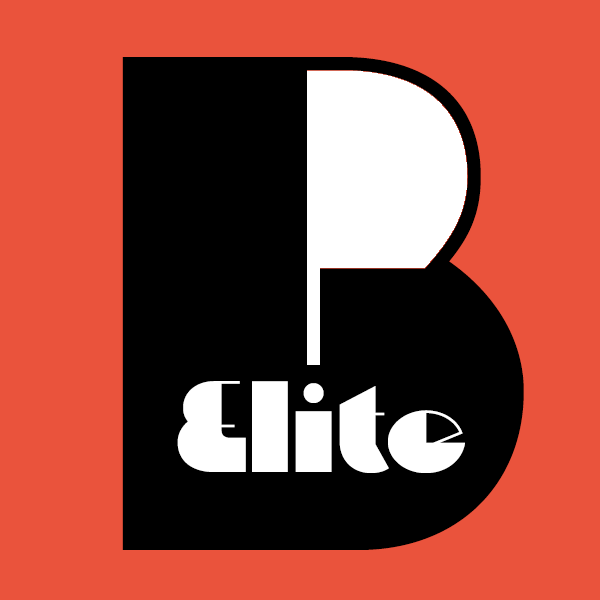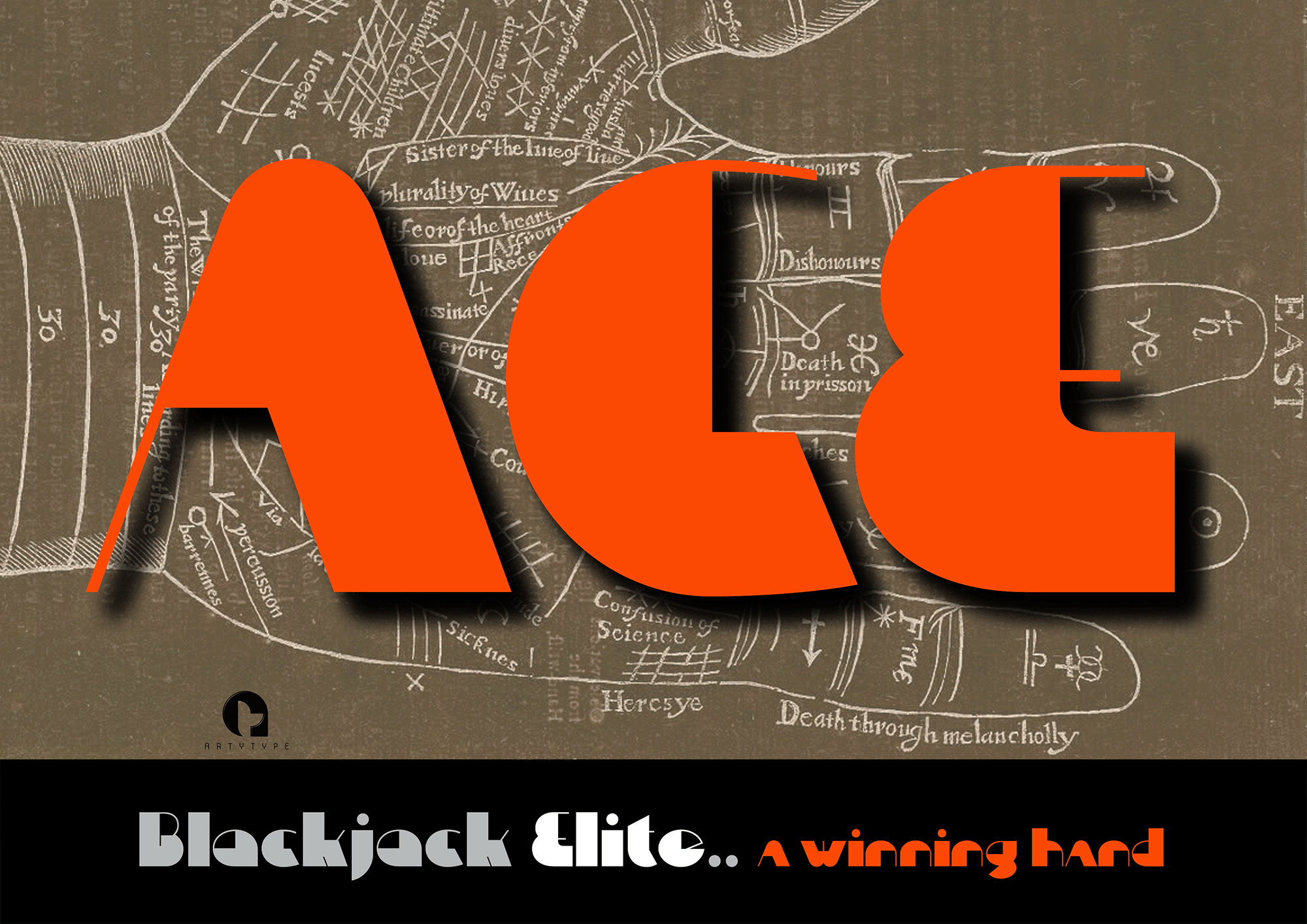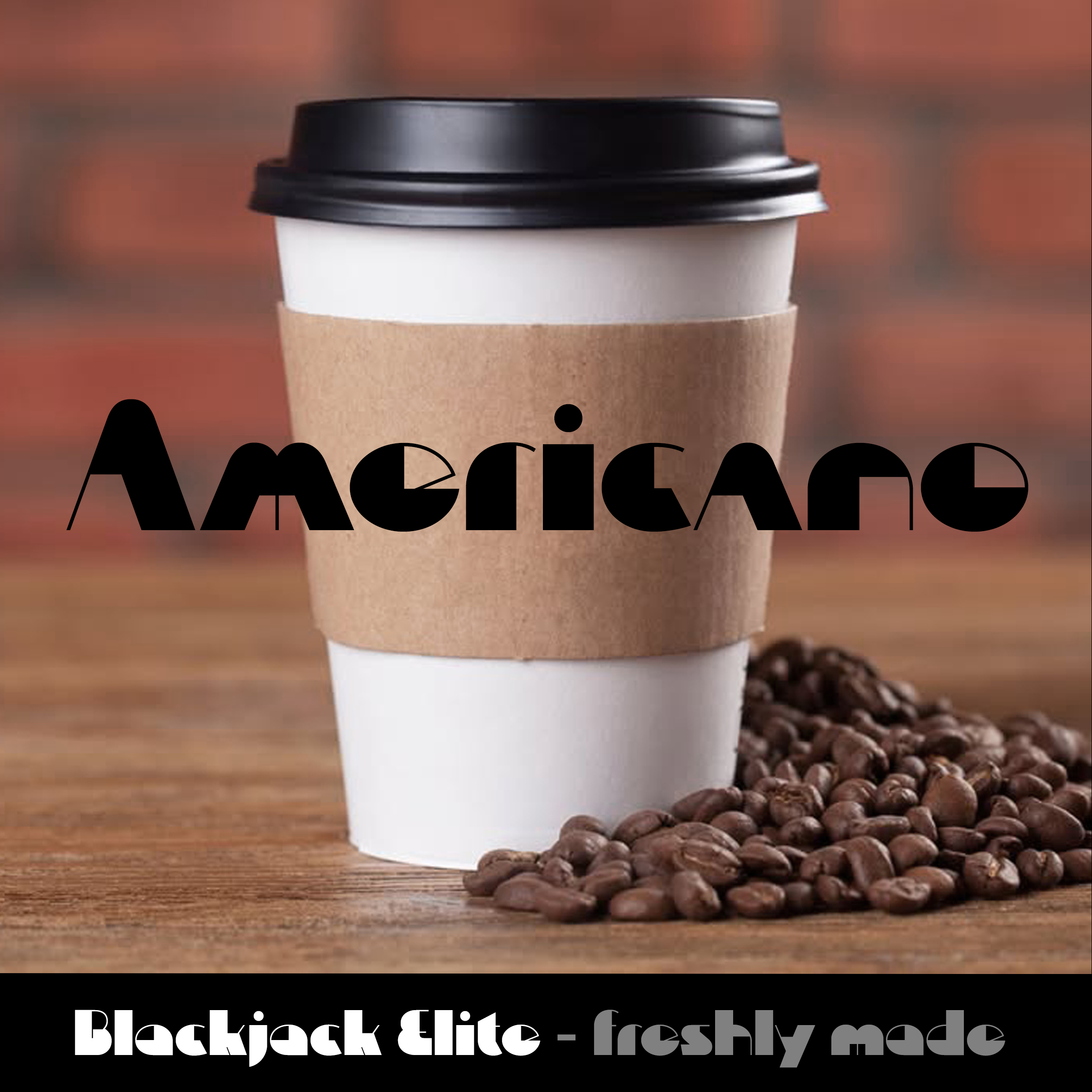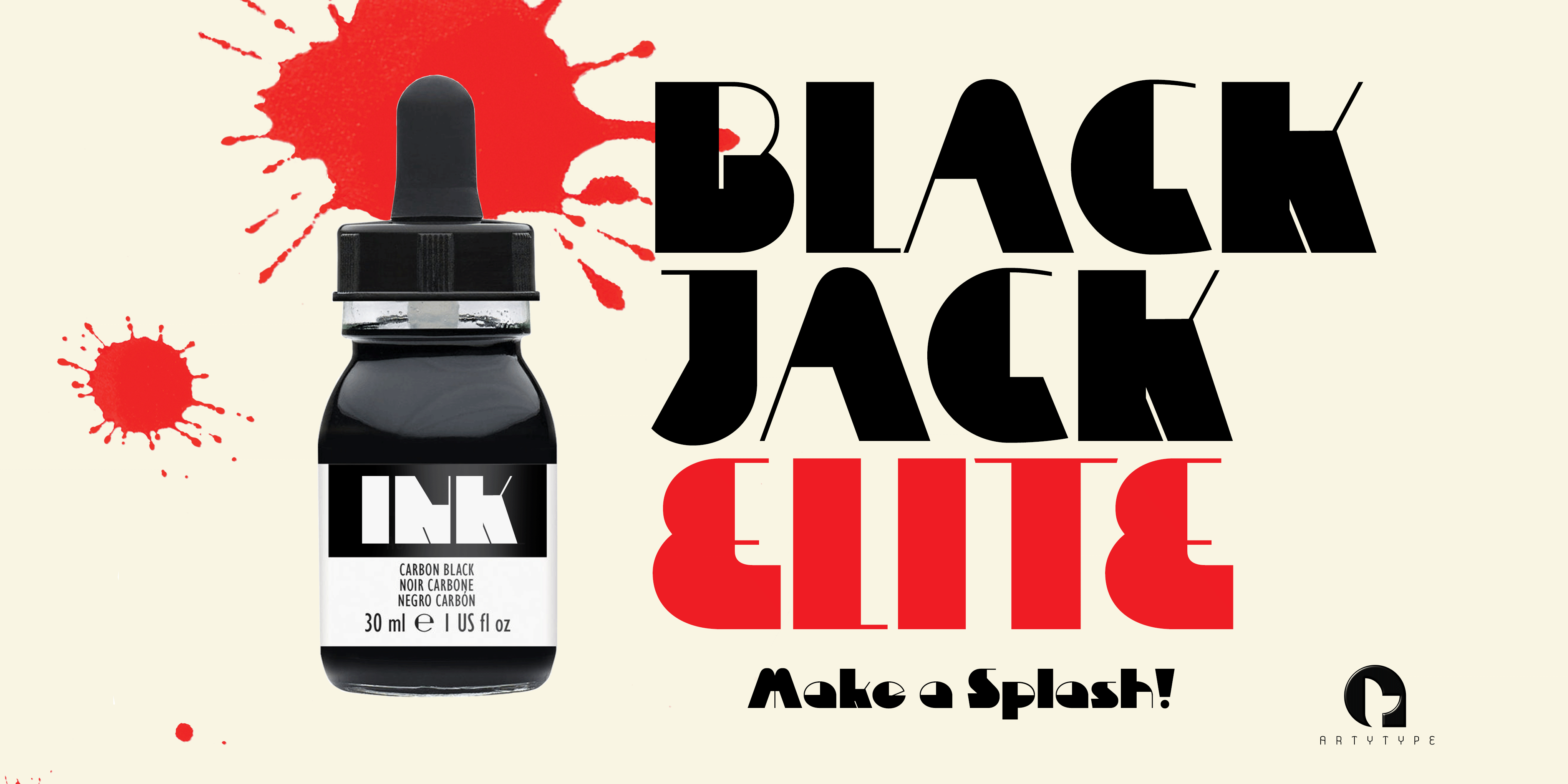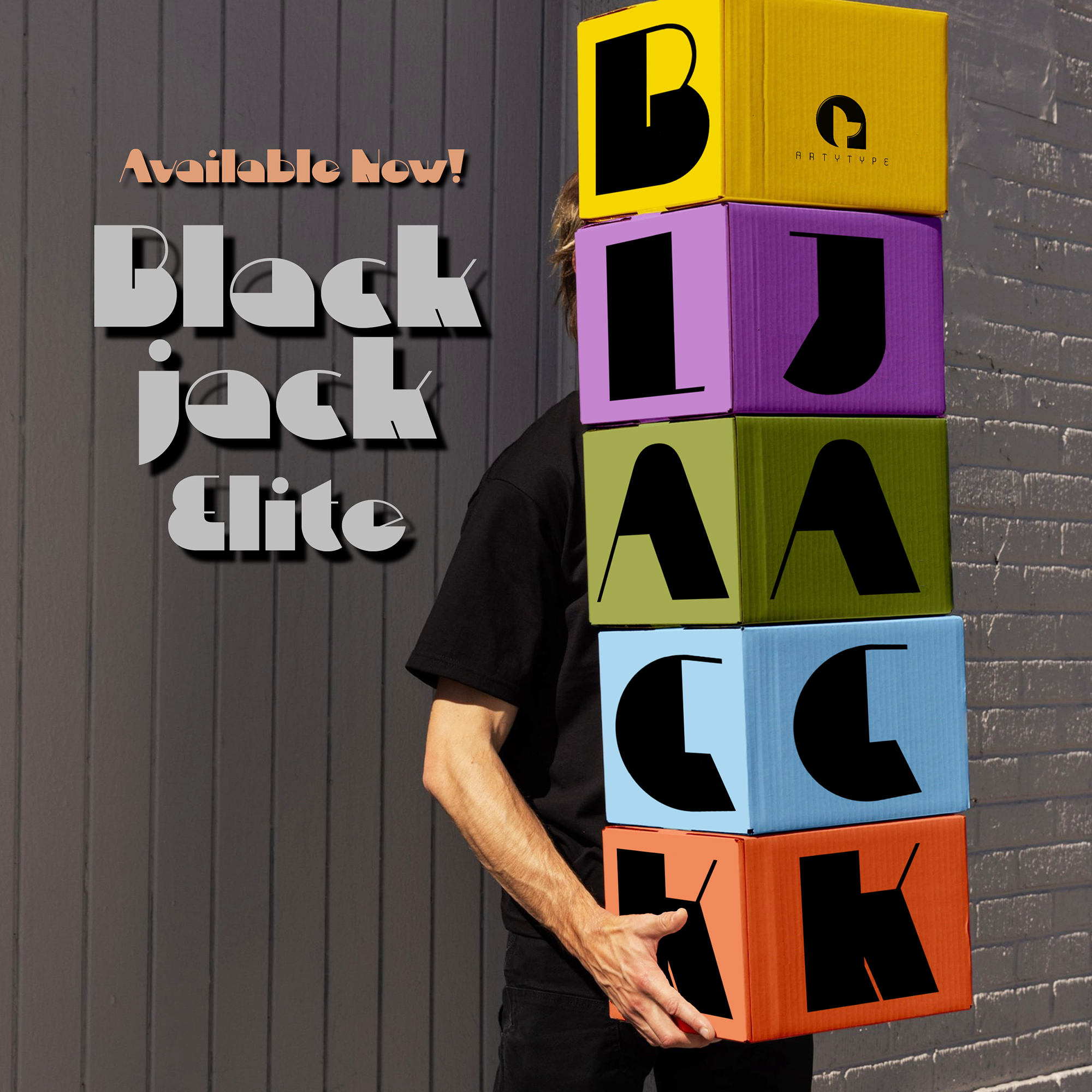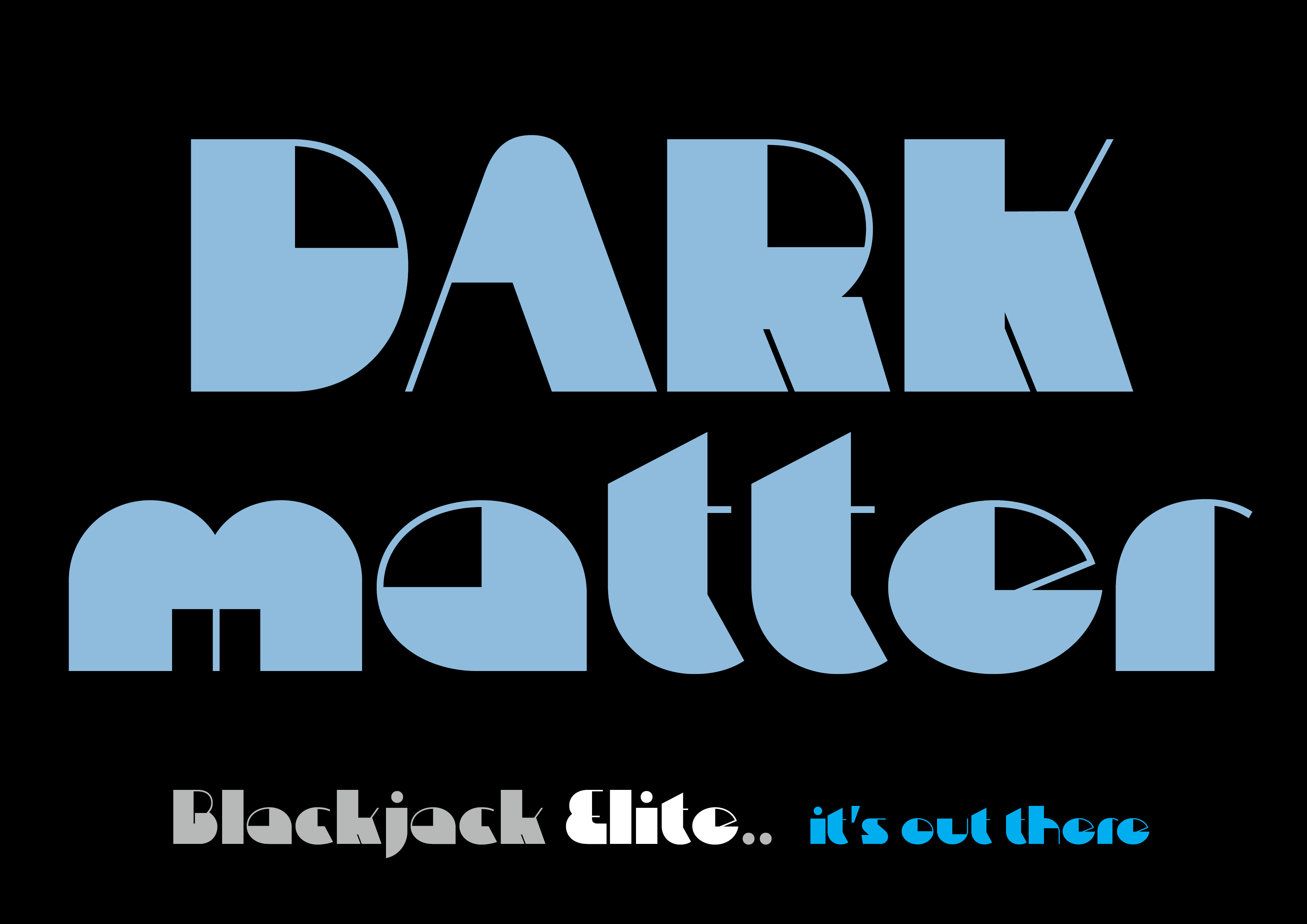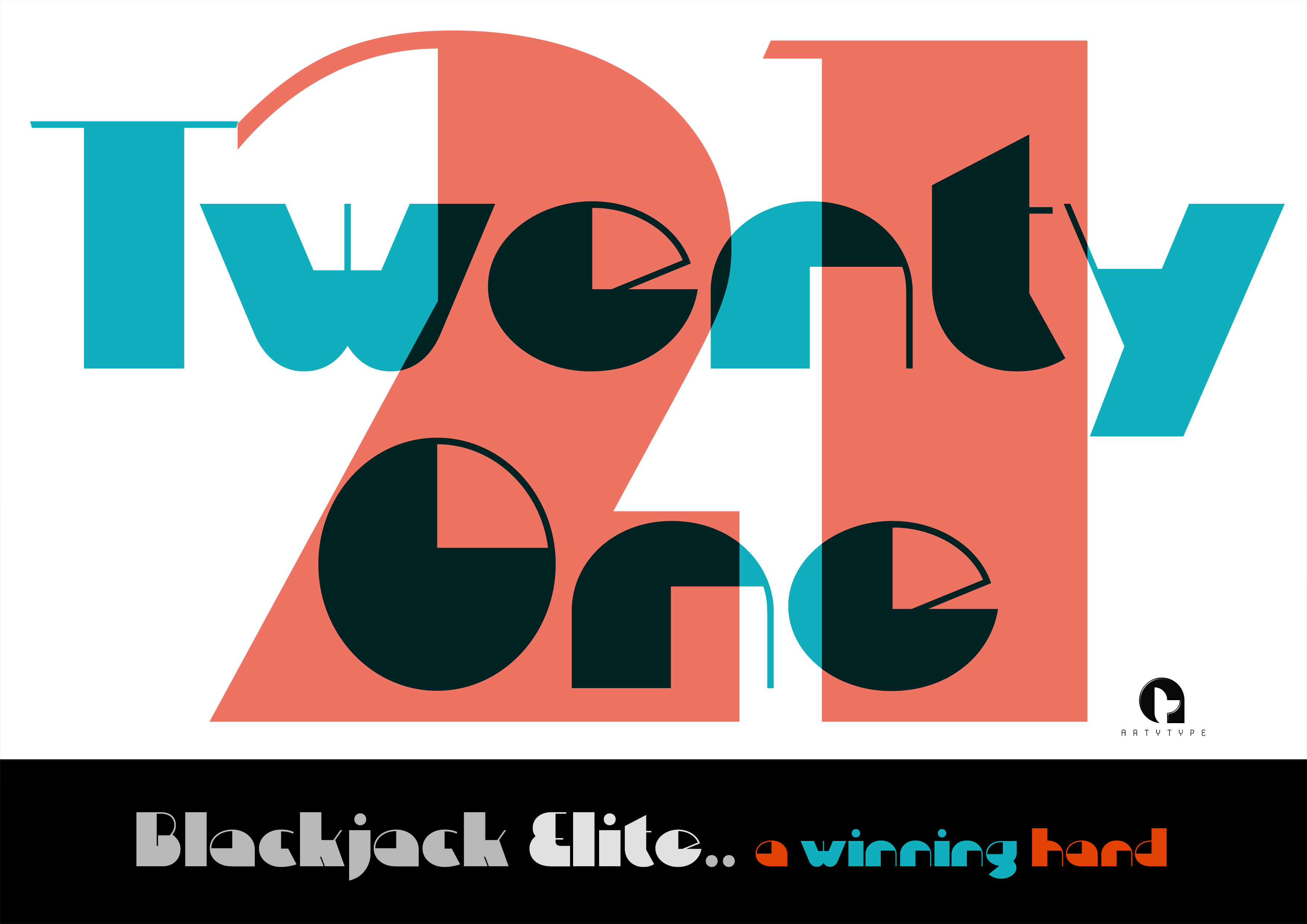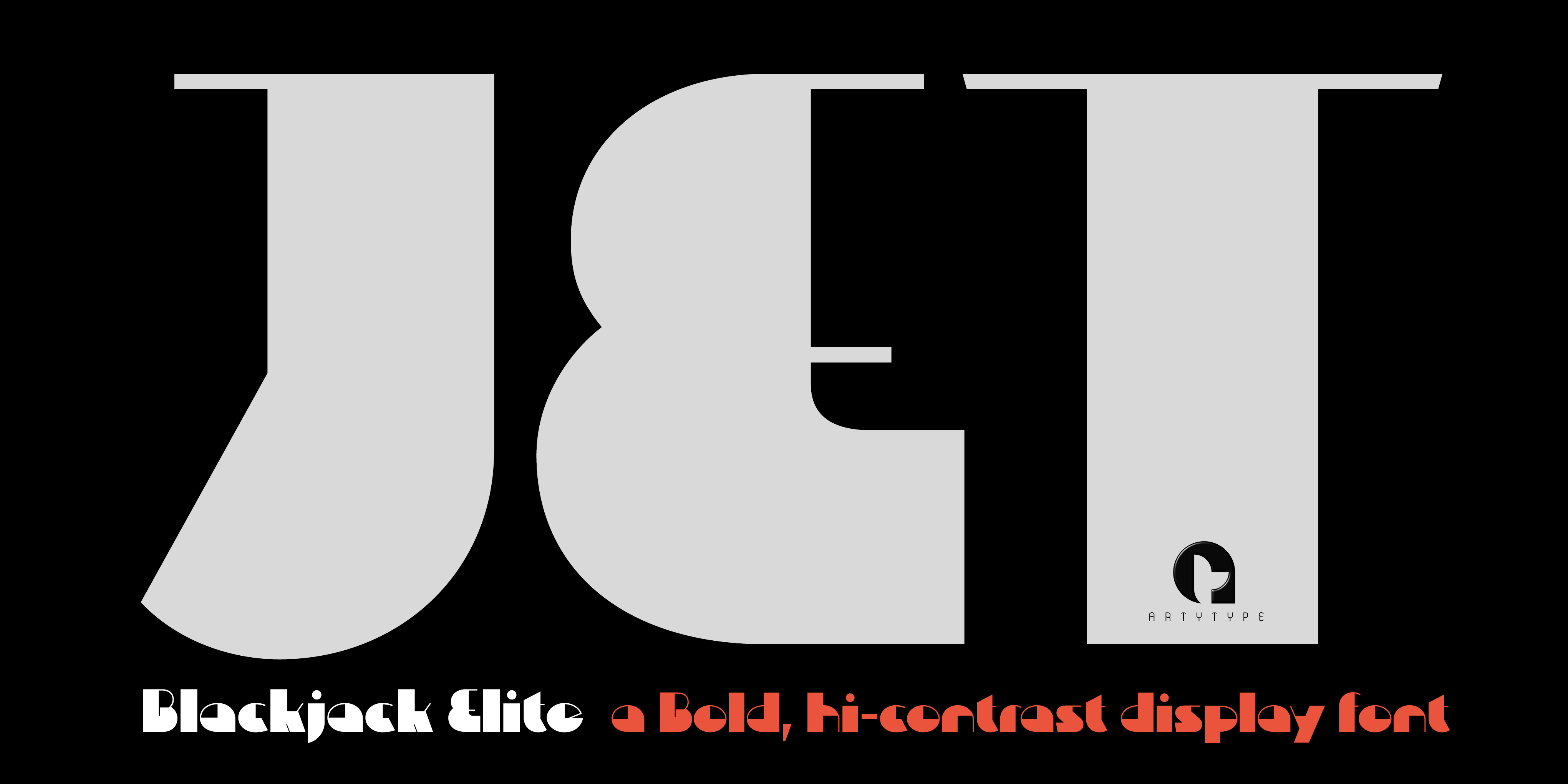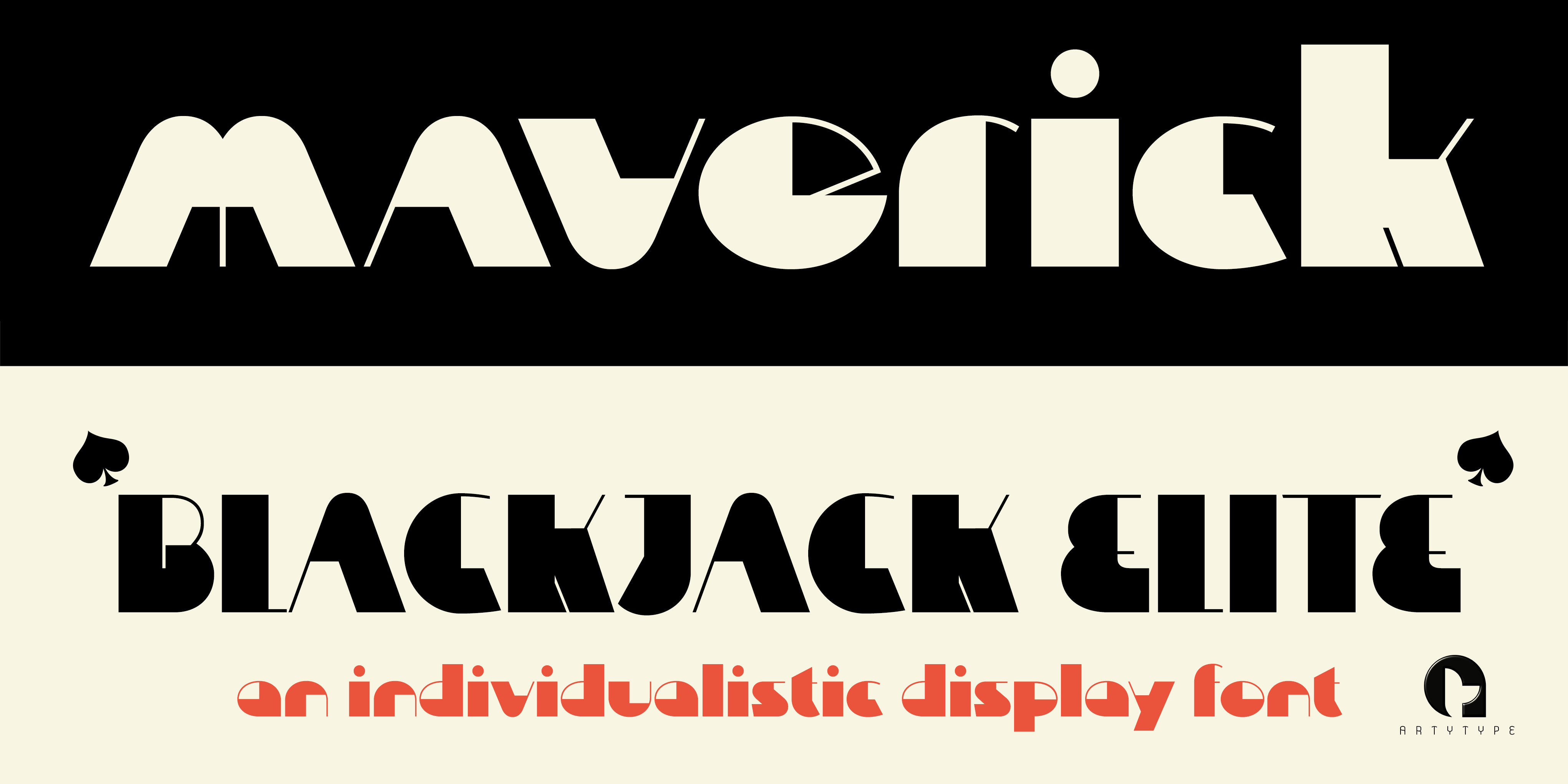
Blackjack Elite
Blackjack Elite is a heavy, single-weight font, bold enough to rival any other heavyweights out there; yet unlike most heavy, ultra, or black font categories, this is a case of ‘less is more’.
In practice, by removing certain bold sections to enhance the high-contrast styling, a rather distinctive and sophisticated character set has emerged. Indeed, the typeface has been elevated into a stylish hybrid, certainly in comparison with other more stoic styles already on the market.